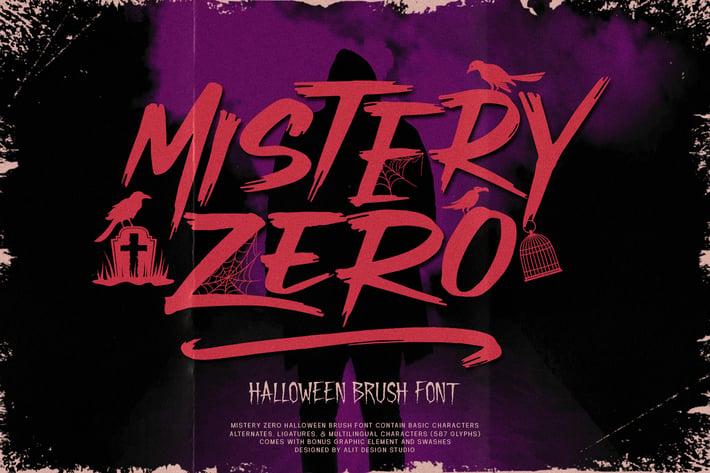
Mistery Zero Typeface
Presenting the 🎃 The Mistery Zero Halloween Typeface 🦇 by alitdesign.
The Mistery Zero Halloween Typeface is designed for the needs of design concepts themed about Halloween and events in October and November. The Mistery Zero Halloween Typeface has a horror character with a script and wet brush style, making the horror Halloween themed design concept even better and unique.
The Mistery Zero Halloween Typeface also gets a bonus character of 150 Halloween-themed illustrations that make creating designs even easier. Simply by downloading The Mistery Zero Halloween Typeface, creating a Halloween themed design is very quick and easy.
The Mistery Zero Halloween Typeface is perfect for magazine cover designs, brochures, flyers. Instagram ads, Canva Design and so on with halloween and dark concepts. besides that this font is very easy to use both in design and non-design programs because everything changes and glyphs are supported by Unicode (PUA).
The Mistery Zero Typeface contains 587 + 150 bonus glyphs with many unique and interesting alternative options.
Latin, Basic, Western European, Central European, South European,Vietnamese.